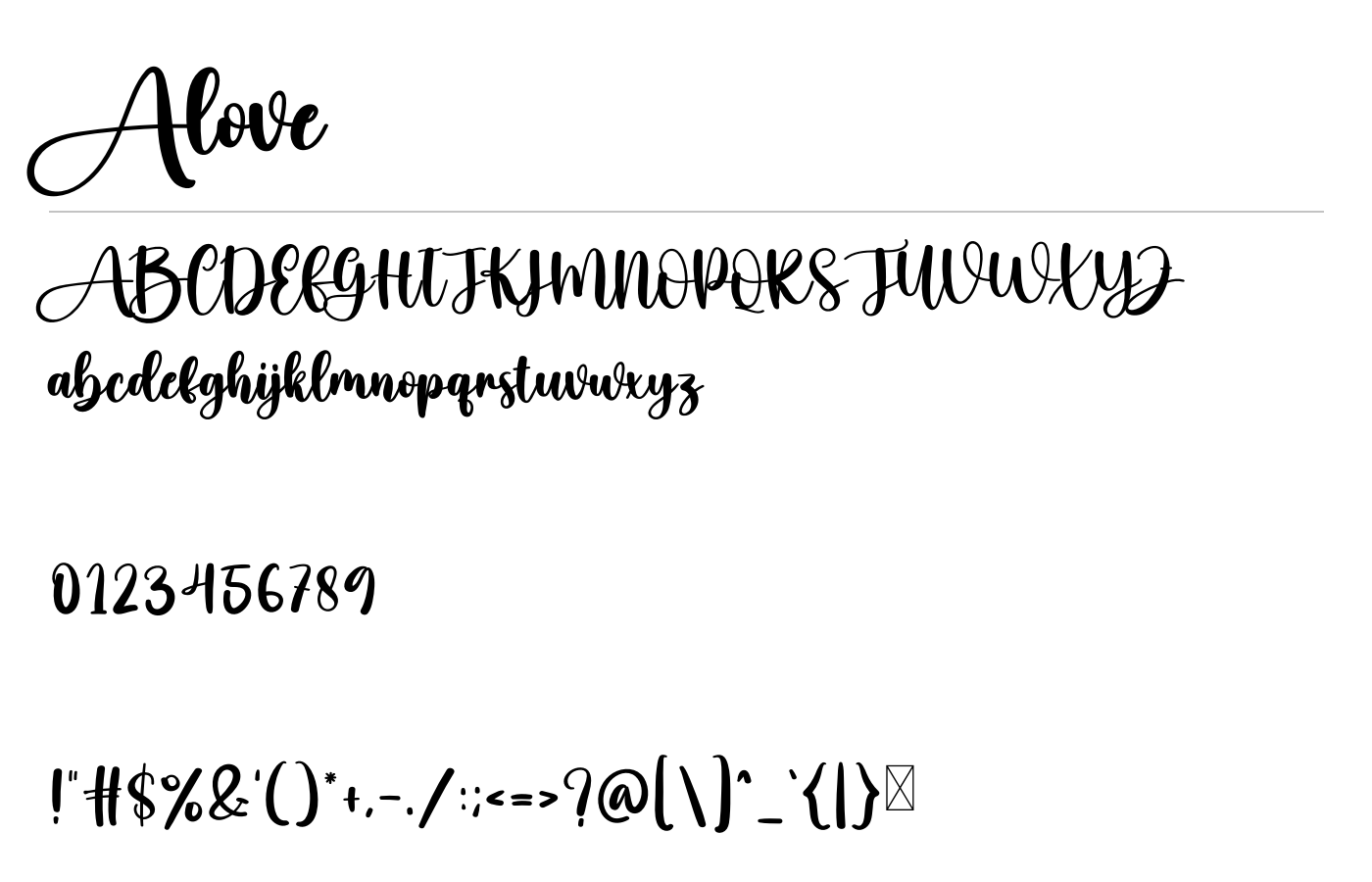
Alove is a stylish script font with a lively and elegant flair, featuring a bold weight and flowing, connected letterforms that convey warmth and personality. Its high contrast and smooth curves make it perfect for creating inviting branding, wedding invitations, and feminine packaging where a touch of sophistication and charm is desired. This font shines in headlines and decorative text, adding a handcrafted and playful yet refined look.
Alove Font
About Alove Font